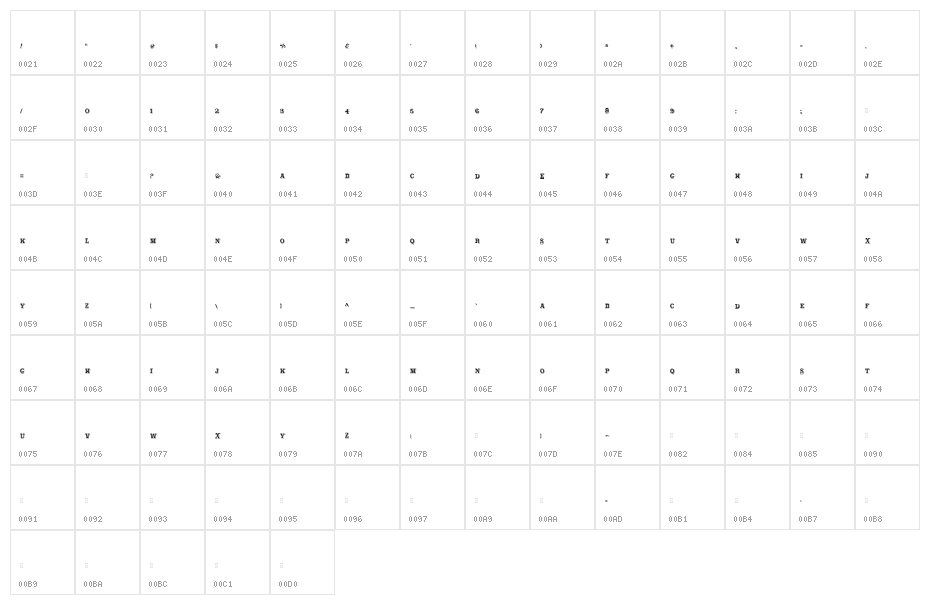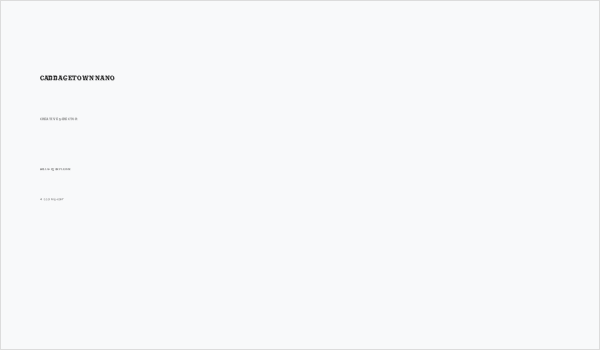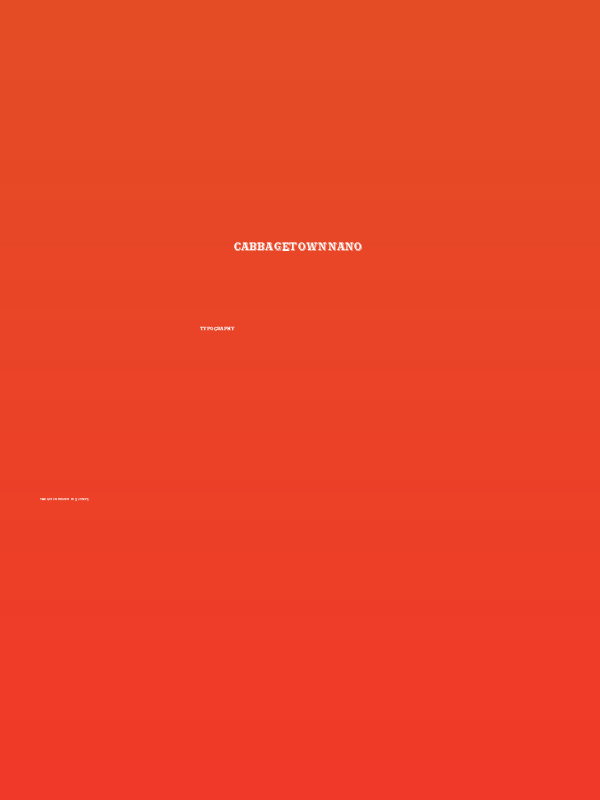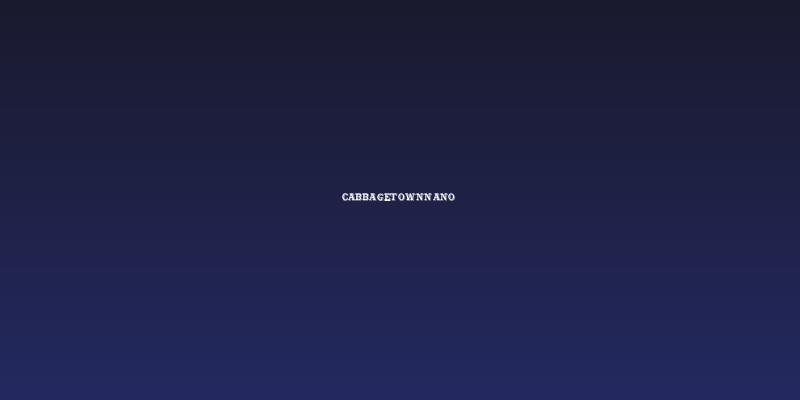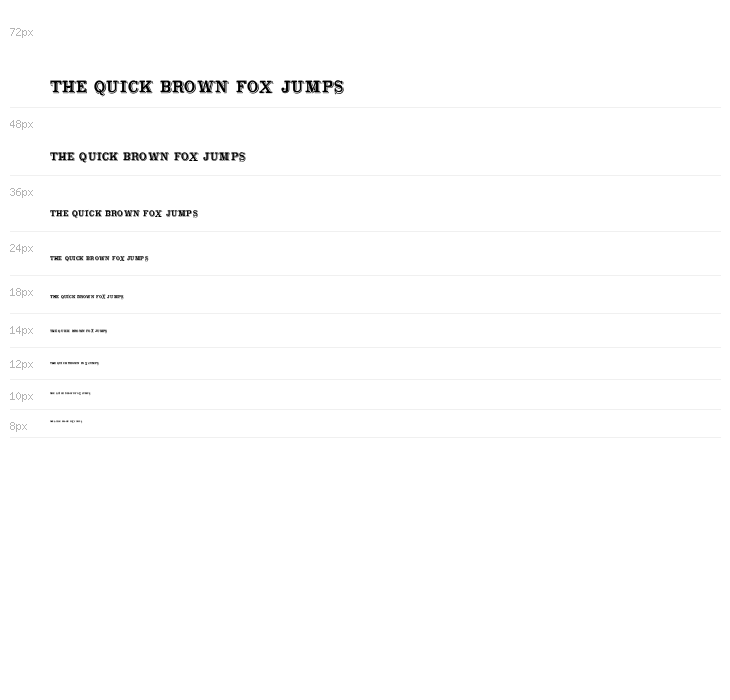
CabbagetownNano Font
CabbagetownNano Description
This font features a bold, decorative style with a distinct outline around each character, giving it a three-dimensional effect. The uppercase letters are prominent and slightly condensed, while the lowercase letters maintain a consistent height and width, ensuring readability. The numerals are uniform and align well with the overall design. Special characters are included, matching the bold and outlined aesthetic. This font's unique style makes it stand out, suitable for eye-catching designs.